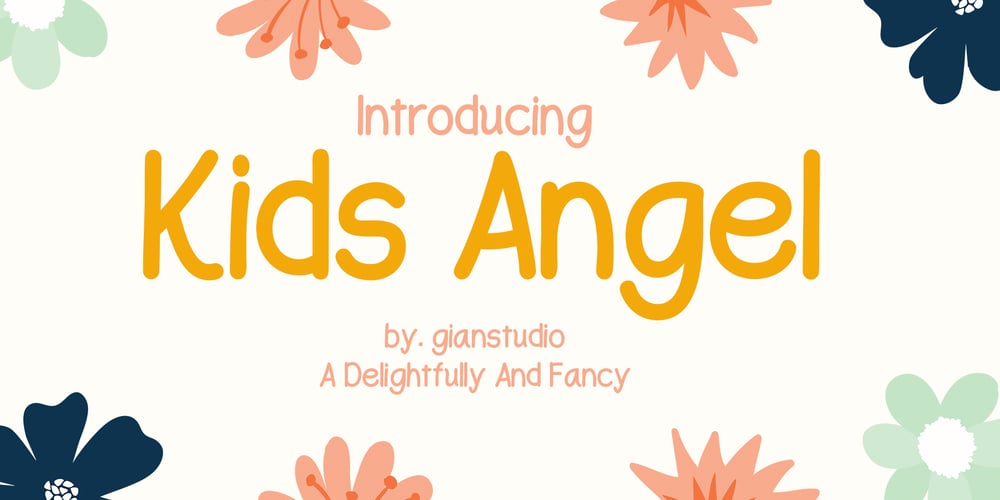
Kids Angel Font Family was designed by Afri Giani and published by Gian Studio. Kids Angel contains 1 styles and family package options. Inspired by creative children’s writing in writing. Introducing the Kids Angel Font, our new and fun font collection. Combining hand drawn style with a modern touch. Kids Angel comes with a ligature alternative that you can use to give your project more options.Perfect for logos, notes, posters, t-shirts, stickers, posters, mugs, labels, etc.To access alternative glyphs, you’ll need a program that supports OpenType features such as Adobe Illustrator CS and Adobe Indesign.How to use the open type feature https://helpx.adobe.com/illustrator/using/special-characters.html